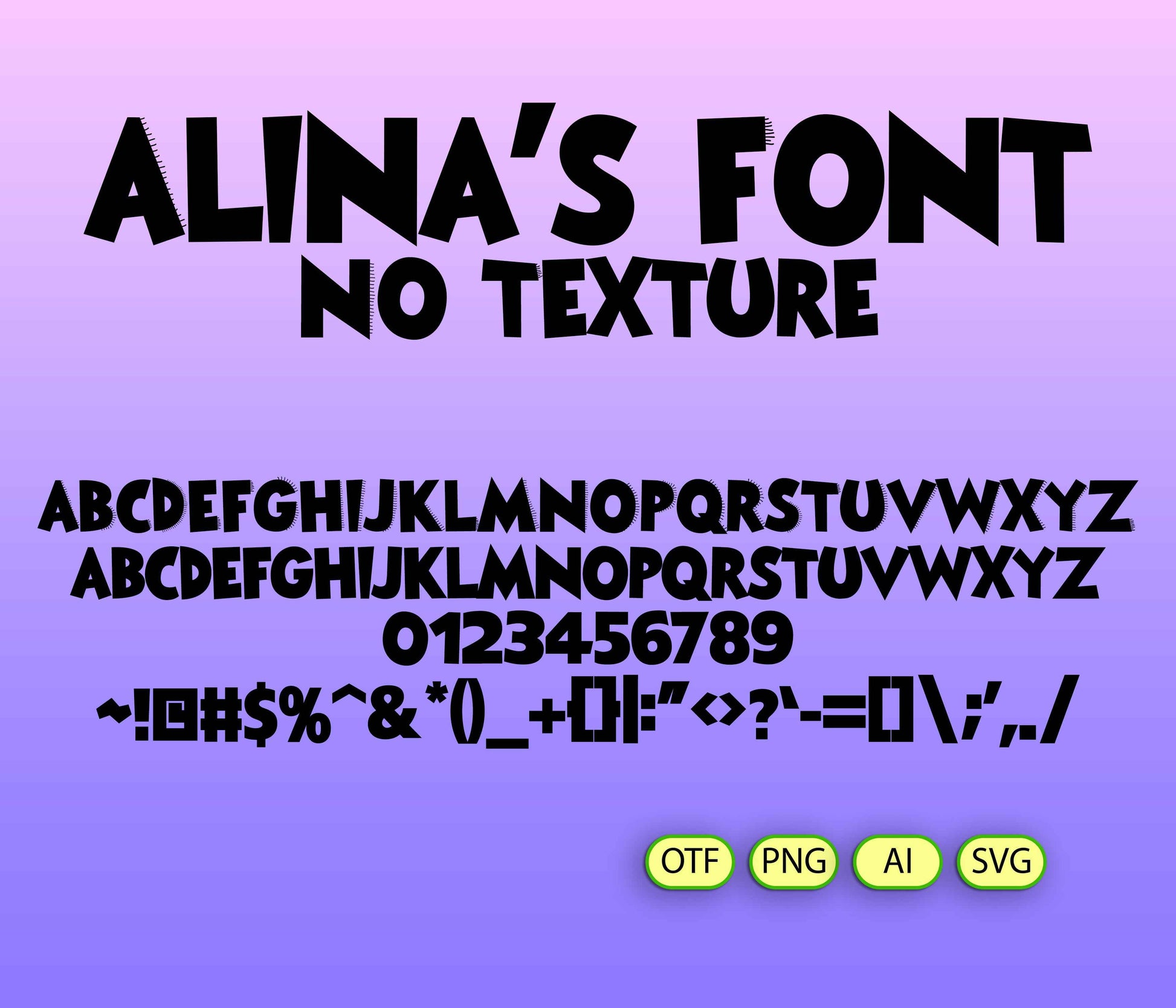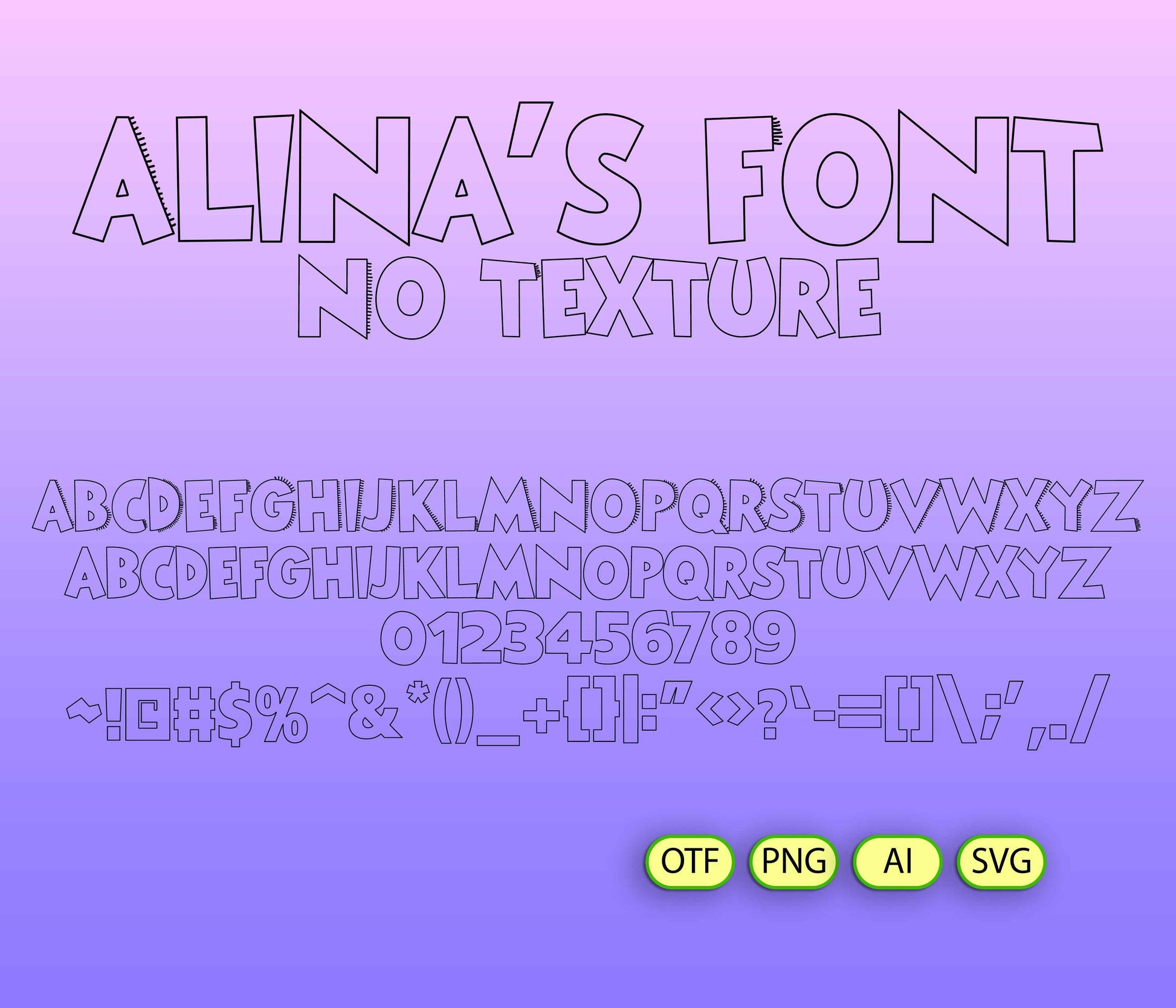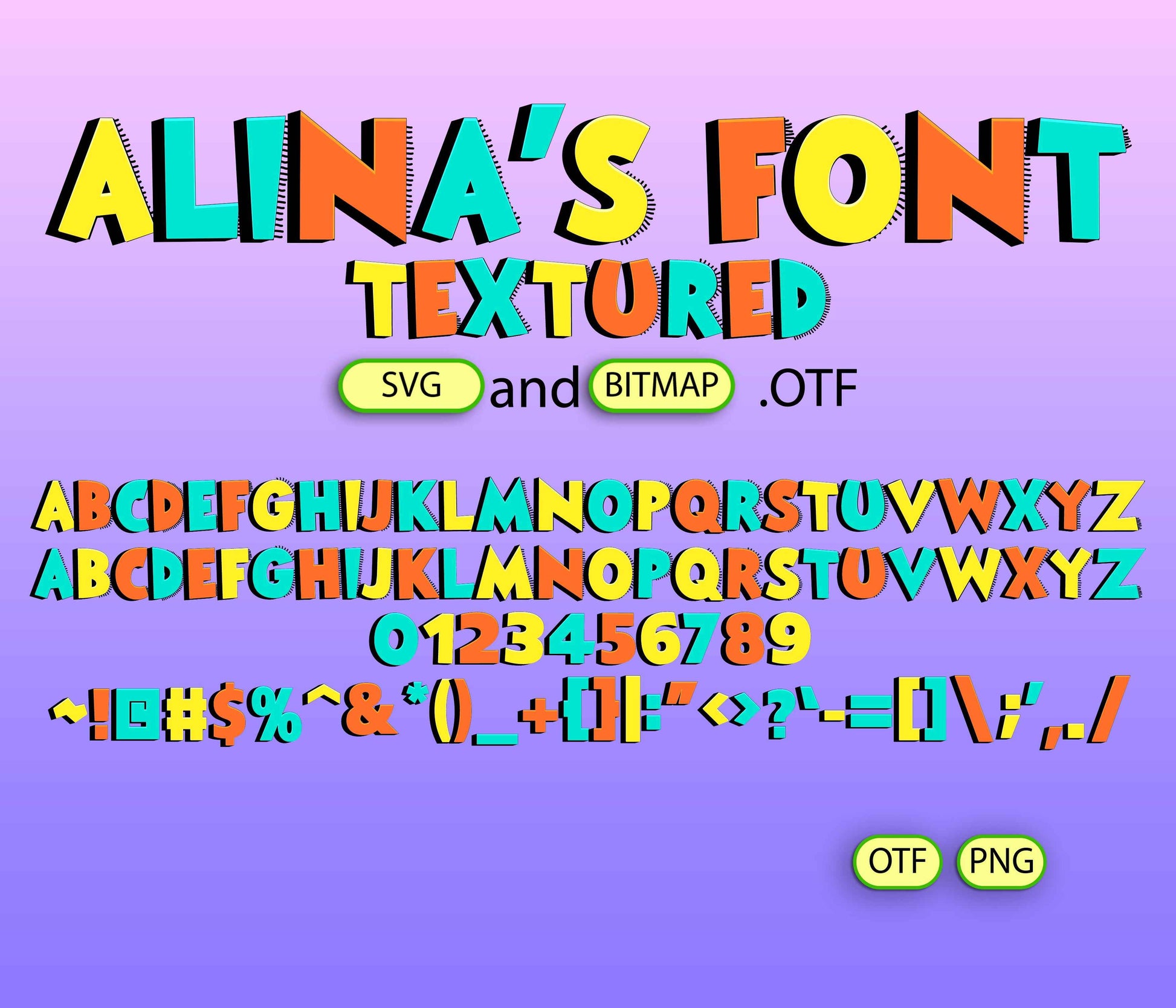
Urban Family Font Textured
Urban Family Series Textured Font
Immerse yourself in the vibrant and heartwarming universe of a multi-generational Latin American family with our specially designed font, inspired by an animated series that captures the essence of urban life. This font is a celebration of cultural richness, family values, and humorous adventures experienced daily by a close-knit family in a bustling city. Perfect for fans, educators, and creators looking to convey messages of unity, diversity, and the beauty of urban life, the Urban Family font lets you craft projects that resonate with the spirit of inclusivity and familial love portrayed in the show.
What font is the 'Urban Family' font?
This question leads us to a typeface that mirrors the lively, dynamic nature of the show, blending the traditional with the contemporary. With characters that reflect the unique personalities within a large, diverse family and the animated world they inhabit, this font embodies the mixture of cultures and the vibrant community life central to the series. Its playful yet readable style makes it perfect for capturing the essence of urban family life, from comedic moments to touching stories of family bonds and cultural heritage. The comprehensive character set ensures versatility, enabling you to express a wide array of sentiments and stories inspired by city-dwelling families.
• FREE No-Texture Version: Offers a sleek, clean variant ideal for a wide range of design needs, ensuring compatibility across digital and print mediums.
• Comprehensive Character Set: Equipped with an extensive selection of characters to support creative endeavors from simple designs to complex compositions.
The Urban Family font is more than just a set of characters; it's a tool for storytelling, a means to celebrate culture, and a way to spread messages of love and family. Whether used for personal projects, educational purposes, or commercial endeavors, this font adds a layer of authenticity and engagement, making every creation a vibrant homage to diverse urban families.